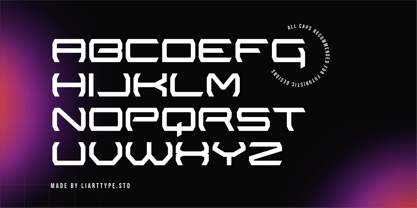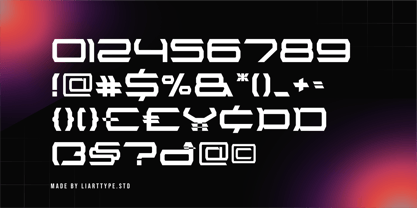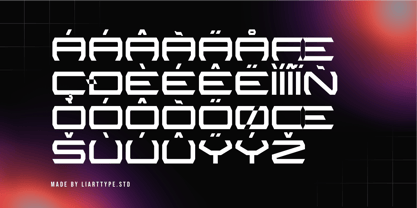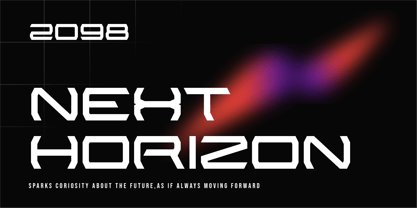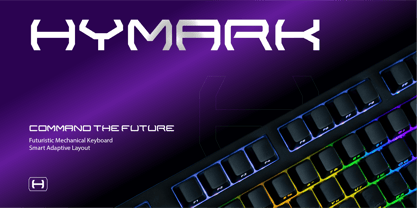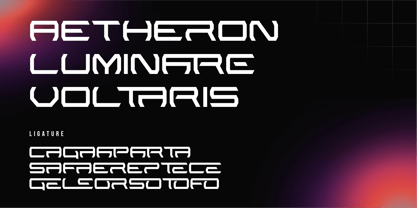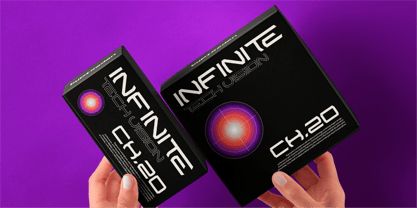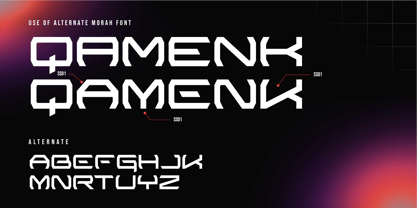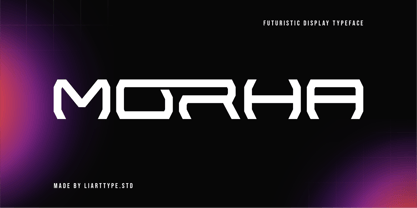
Morha
by Liartgraphic
The Morha Font Family was designed by Ali Sifak Muftari and published by Liartgraphic. Morha contains 1 styles.
Morha is a futuristic display typeface with a bold, sharp, and modern design. Its geometric letterforms with angular cuts create a technological, sci-fi, cyberpunk, and futuristic vibe. Perfect for technology branding, space-themed posters, game design, esports visuals, and electronic product identities.
This typeface includes uppercase letters, numbers, symbols, multilingual support, alternates, and ligatures for design flexibility. With its distinctive style, Morha brings a sense of boldness, innovation, and visionary aesthetics to any project.